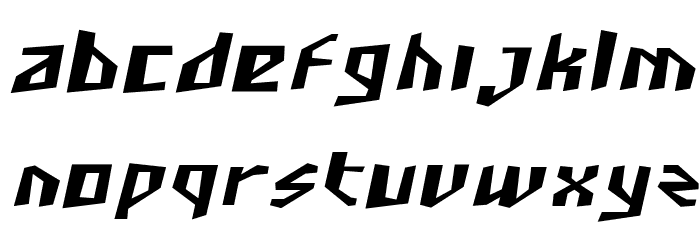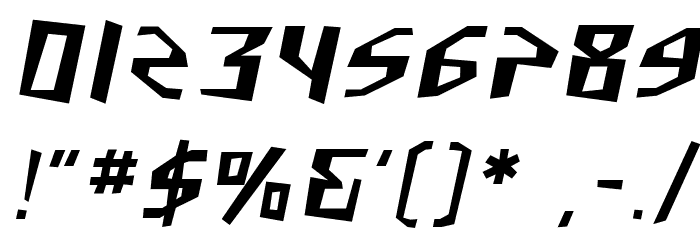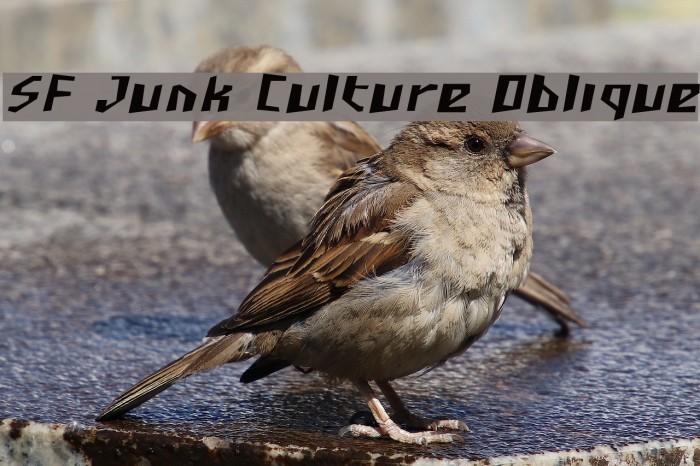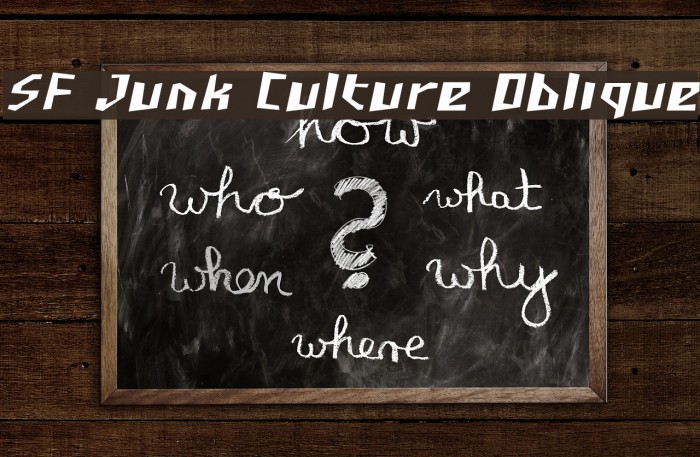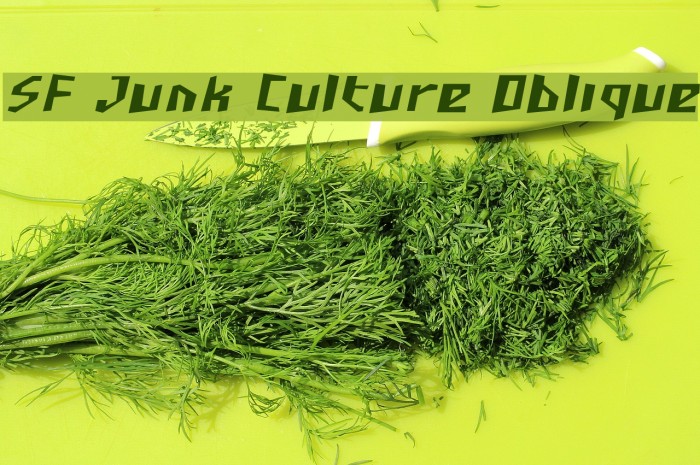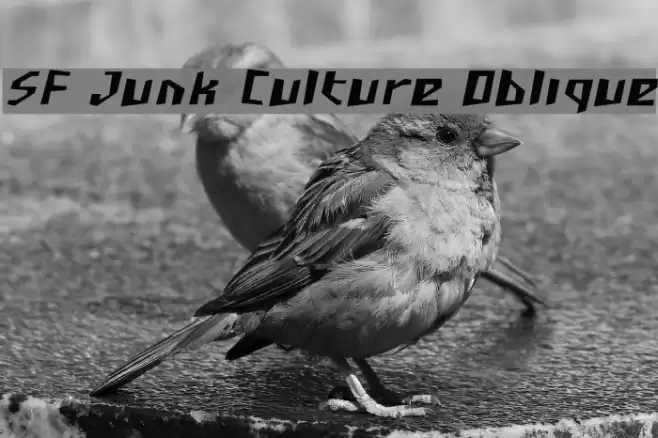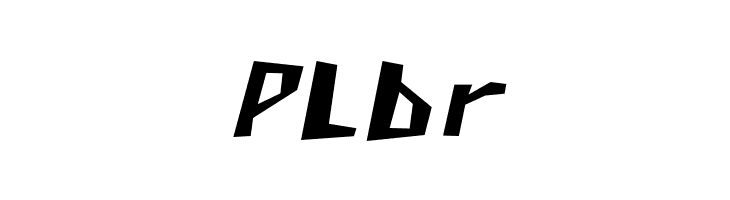
SF Junk Culture Oblique Font
This font features a bold and dynamic style with a distinct oblique slant, giving it a sense of movement and energy. The characters are angular and geometric, with sharp edges and a futuristic appearance. The uppercase and lowercase letters maintain a consistent style, while the numerals and special characters complement the overall design. The font's unique aesthetic makes it stand out, suitable for projects that require a modern and edgy look.
A bold, angular, and oblique font with a futuristic style.
- Proposed Projects: Ideal for sci-fi themed designs, video game titles, edgy branding, and modern posters.